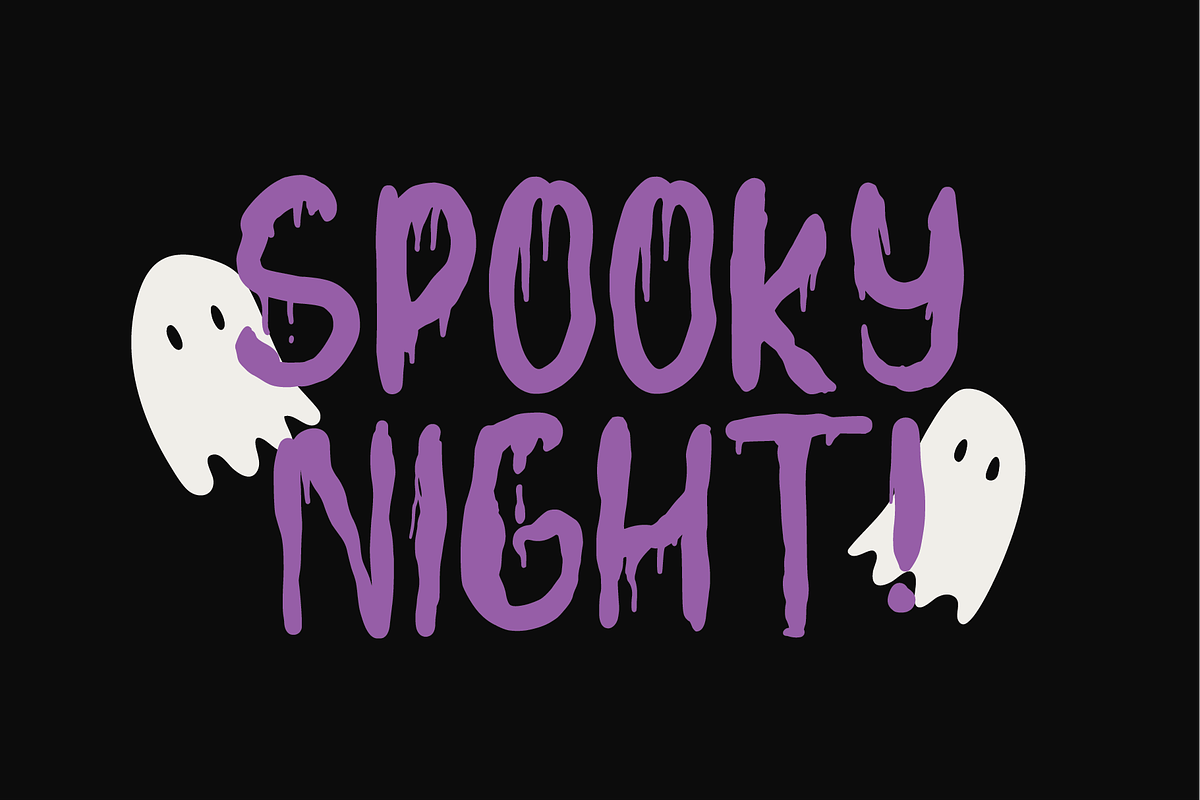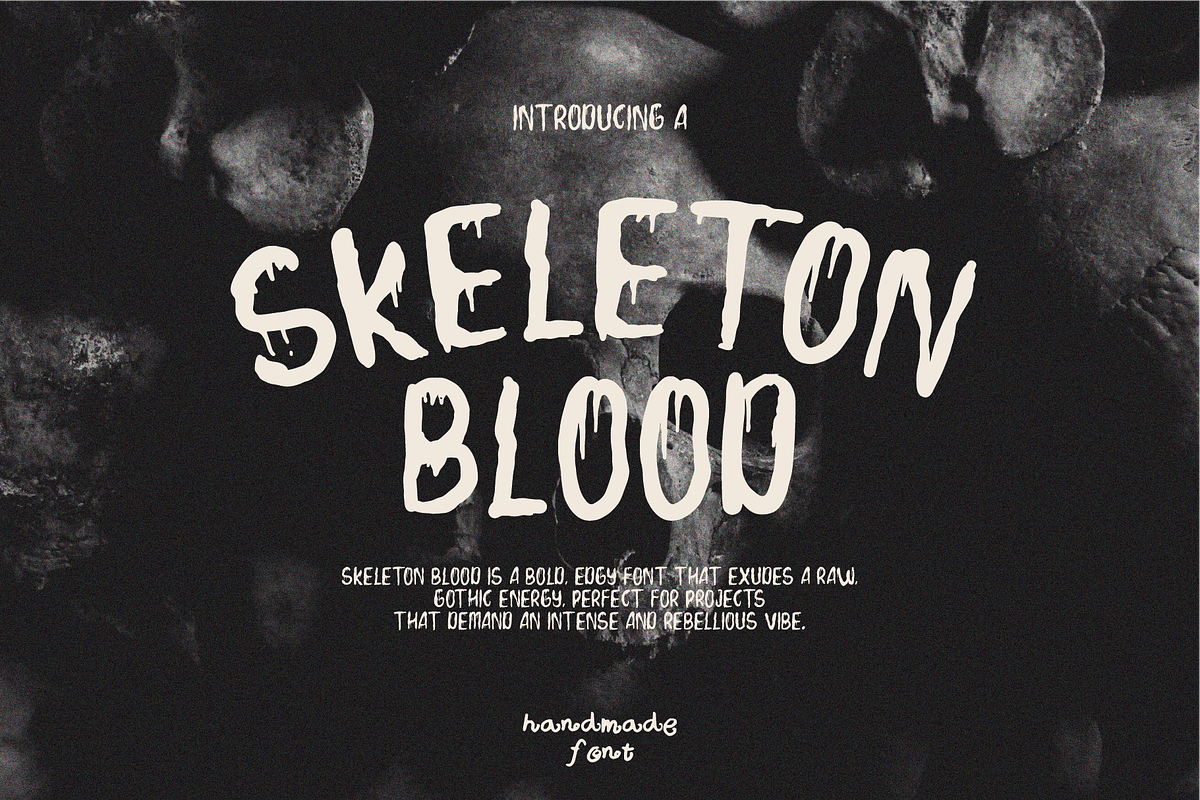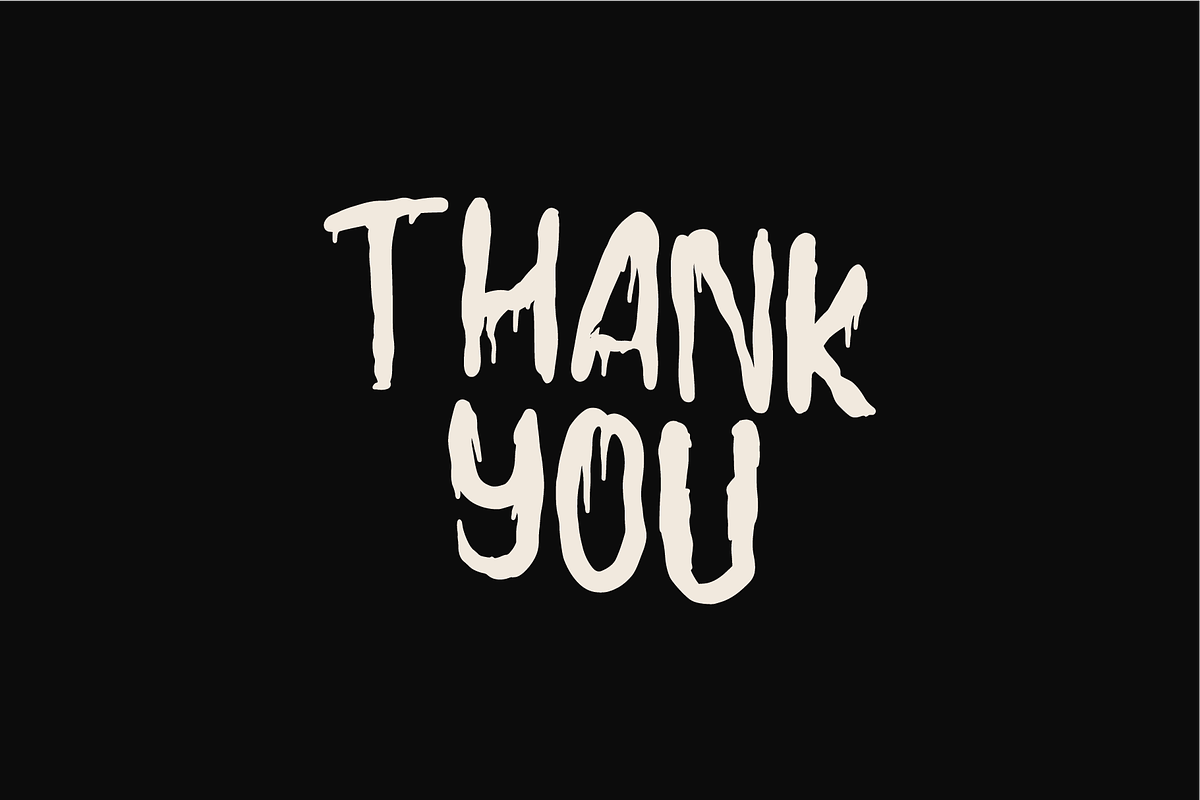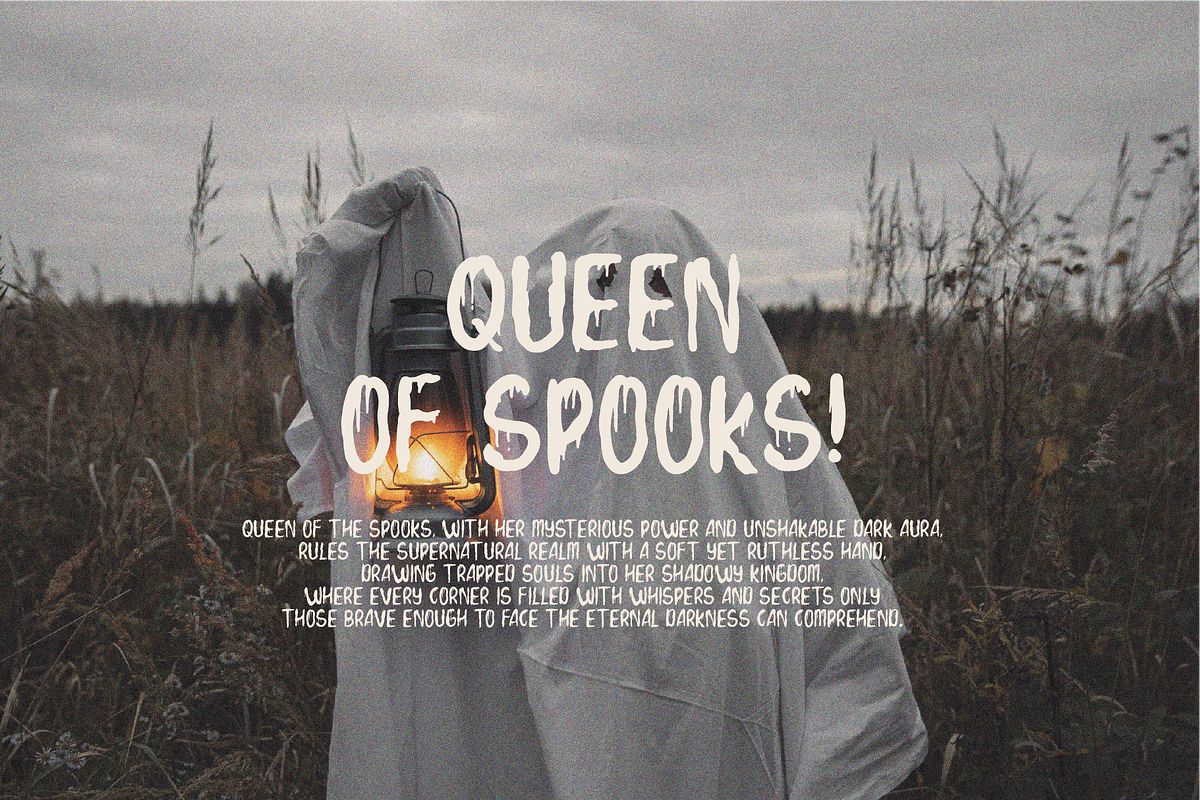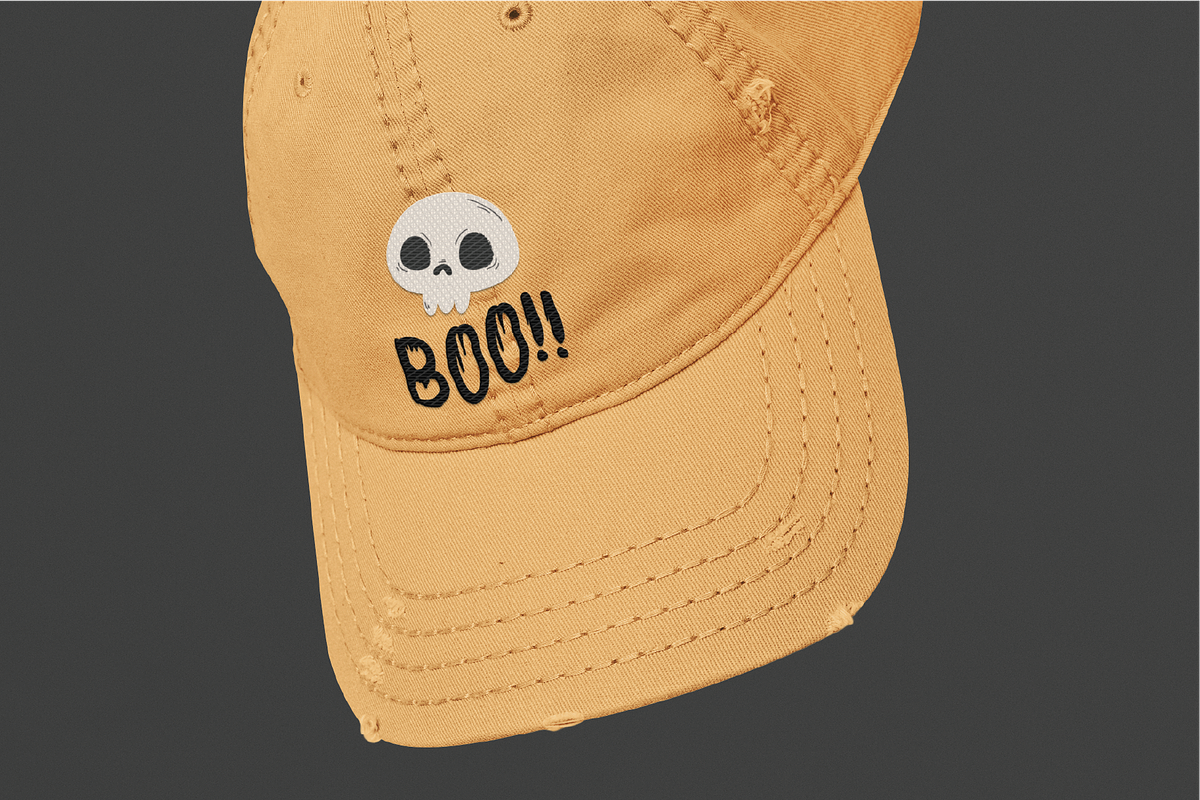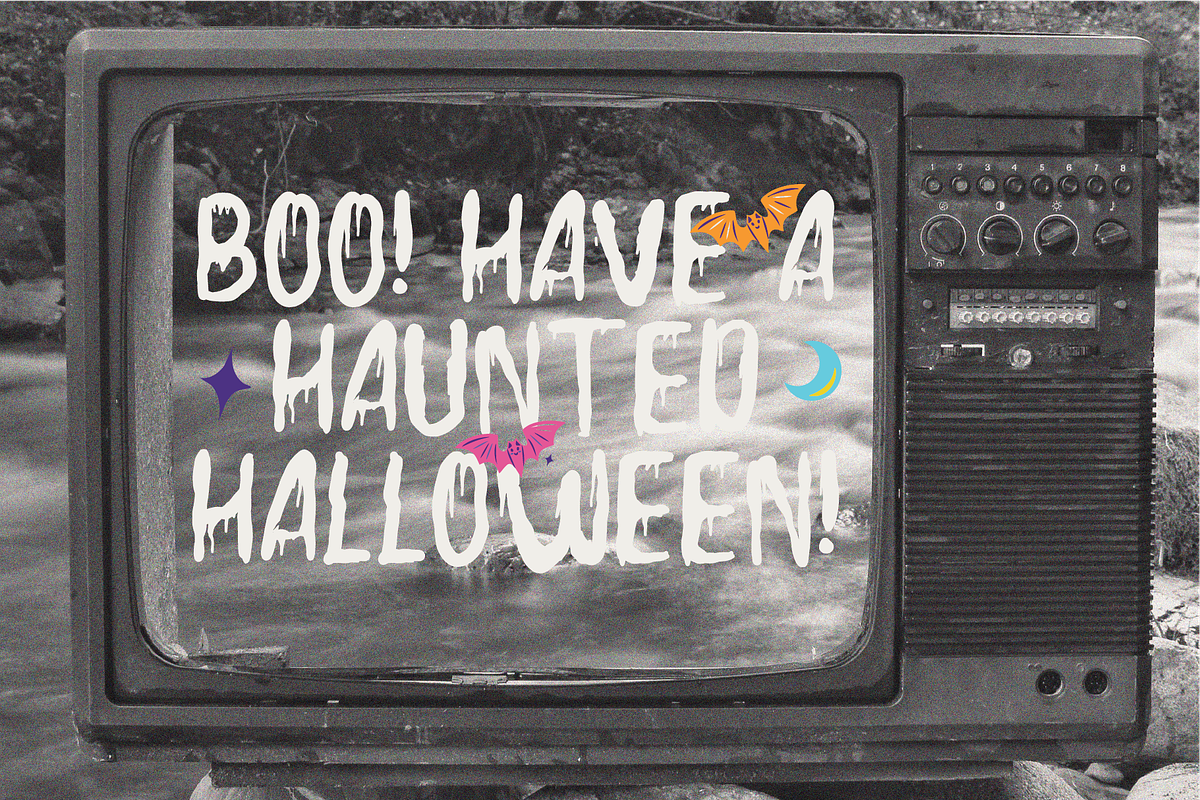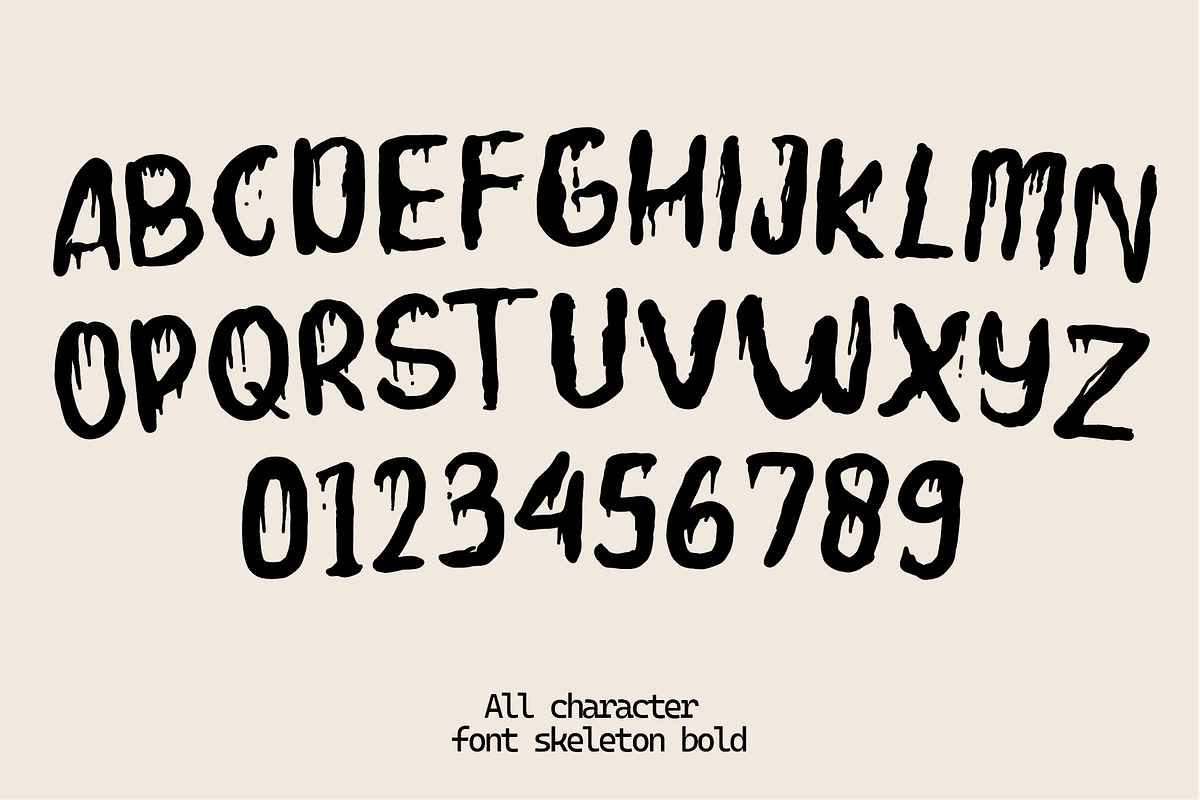
Skeleton Blood - Halloween Font
Skeleton Blood The font in this image has a playful, spooky appearance with drips hanging from the letters, giving it a fun and slightly eerie vibe. The letters are bold and have a rounded, slightly irregular shape.